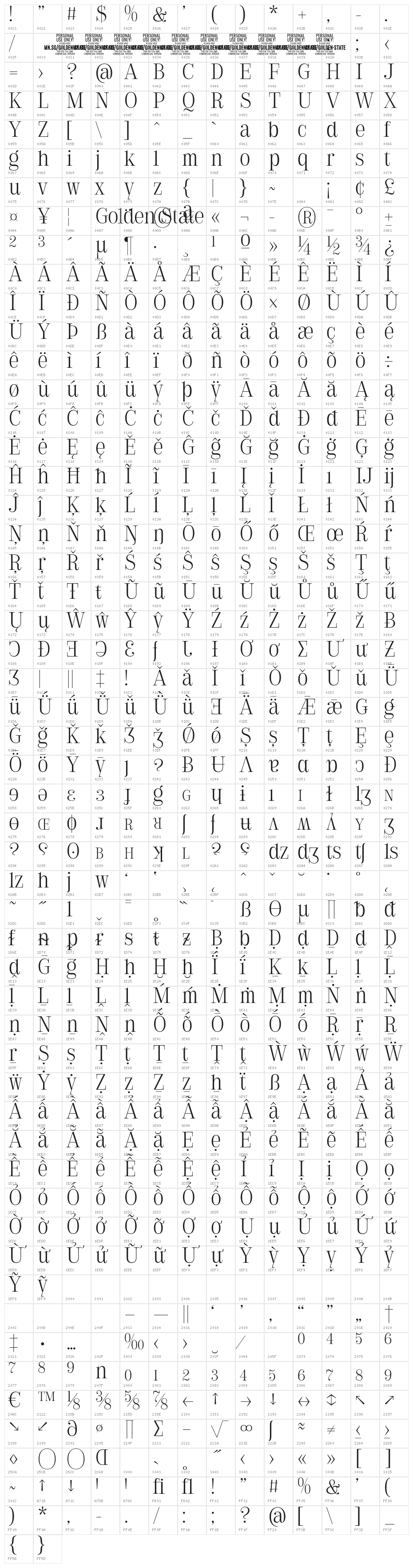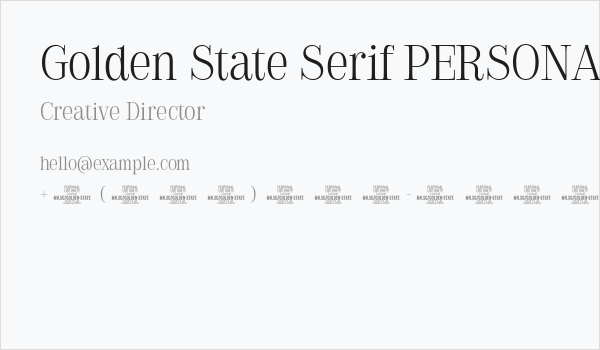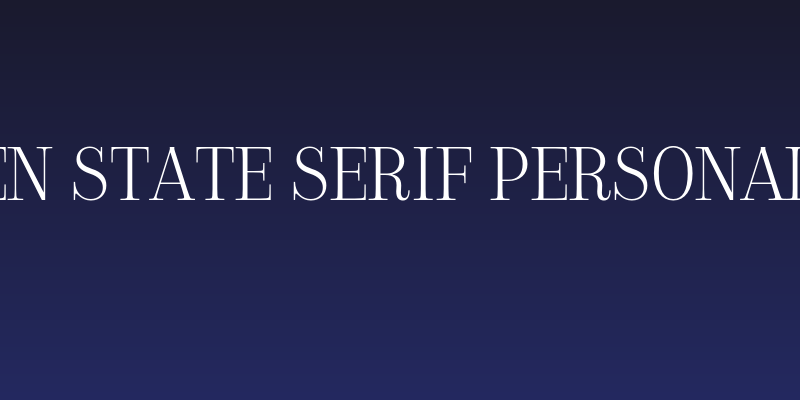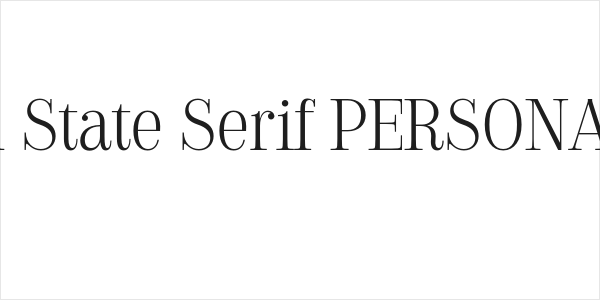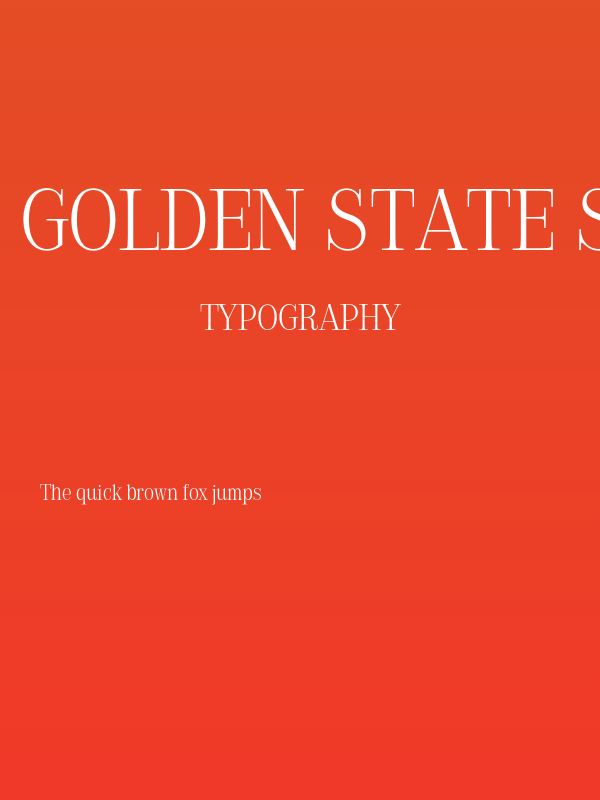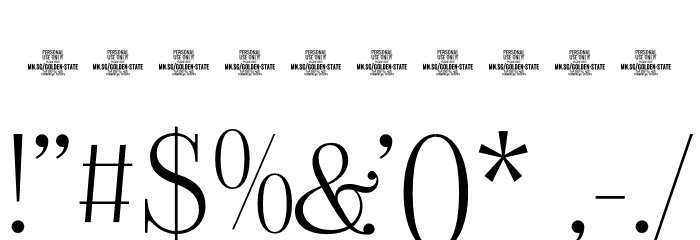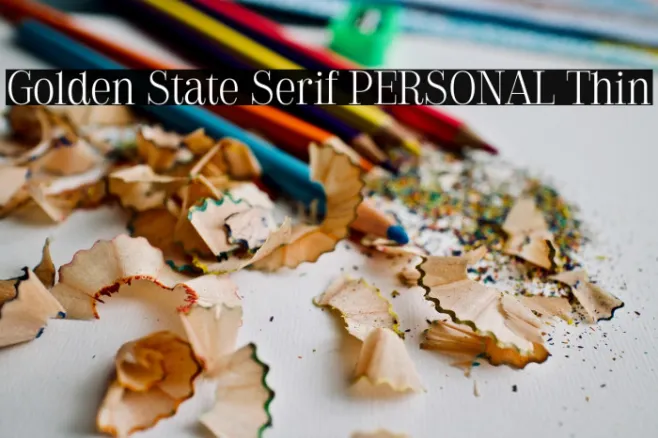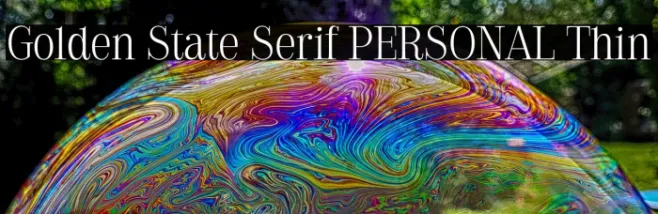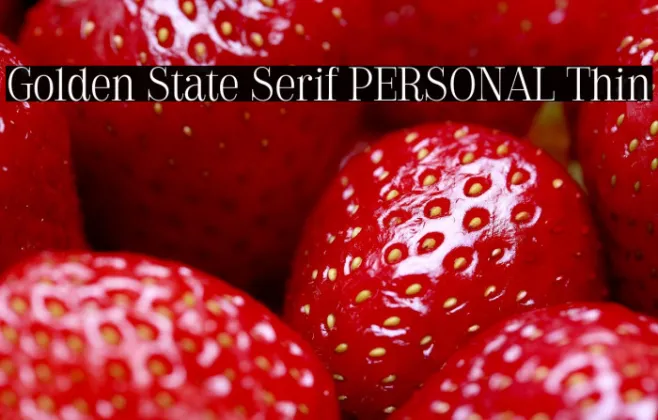
Golden State Serif PERSONAL Thin Font
Golden State Serif PERSONAL Thin Description
This font features a classic serif design with elegant, thin strokes that convey a sense of sophistication and refinement. The uppercase letters are tall and stately, while the lowercase letters maintain a consistent height, providing a harmonious balance. The serifs are pronounced yet delicate, adding a touch of traditional charm. The numerals and special characters are designed with the same attention to detail, ensuring a cohesive look across all text. This font's thin weight and high contrast between thick and thin strokes make it ideal for creating a refined and polished appearance.
| Overall Style | Classic |
| Proposed Projects | Ideal for luxury branding, editorial design, wedding invitations, and high-end product packaging. |